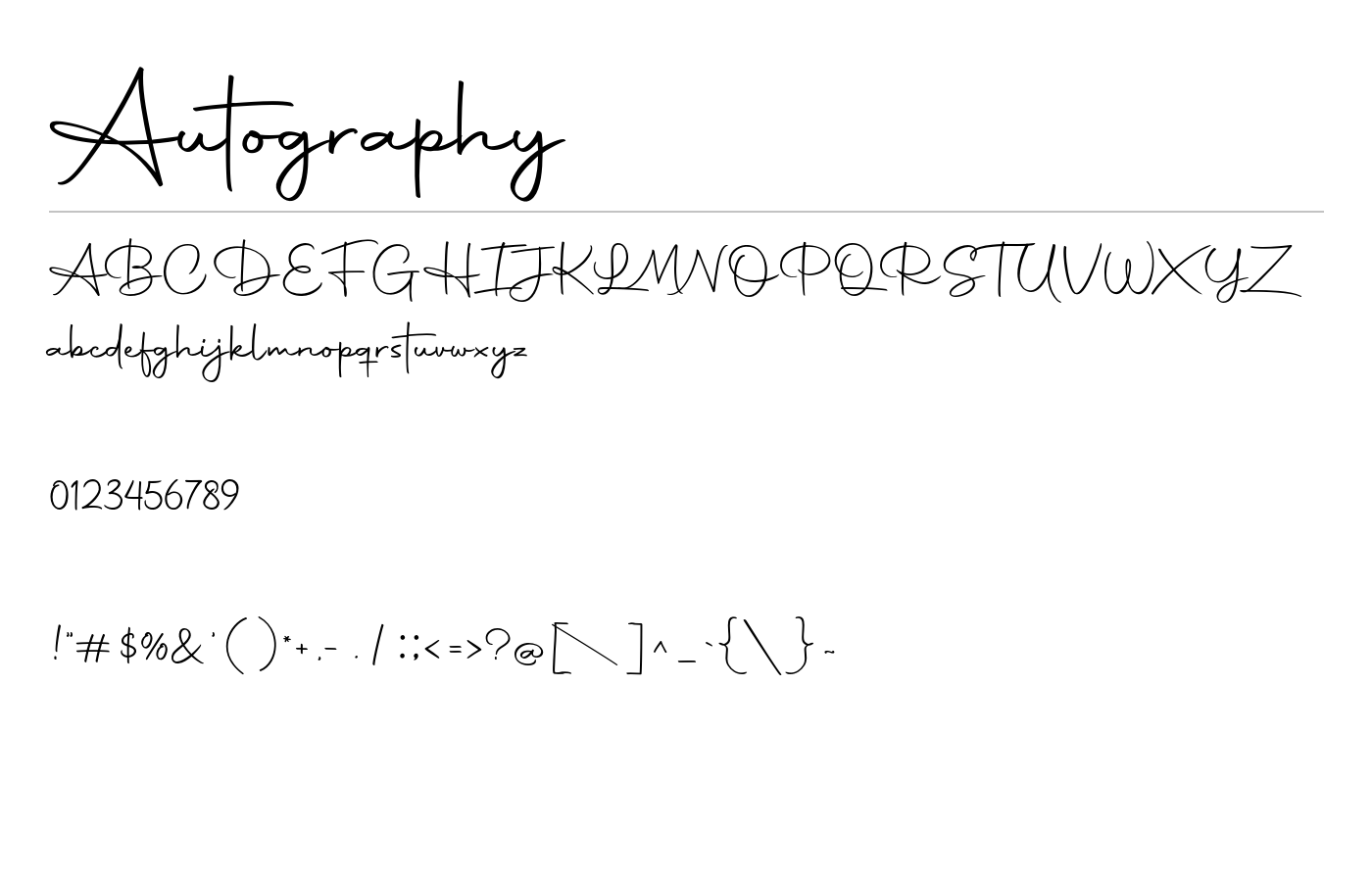
Autography is a delicate, handwritten script font that exudes a casual and personal touch with its thin strokes and airy spacing. Its light weight and whimsical letterforms create an inviting, friendly vibe, making it perfect for branding, invitations, and creative projects that aim for an intimate, authentic feel. This font works especially well in designs that want to convey warmth and individuality without sacrificing elegance.
Autography Font
About Autography Font